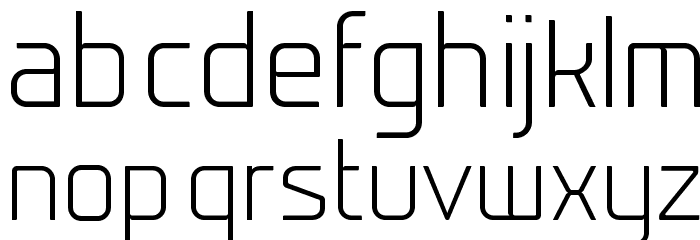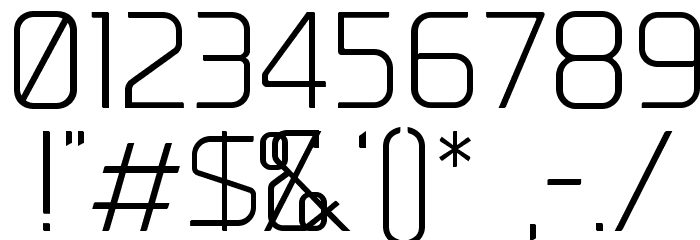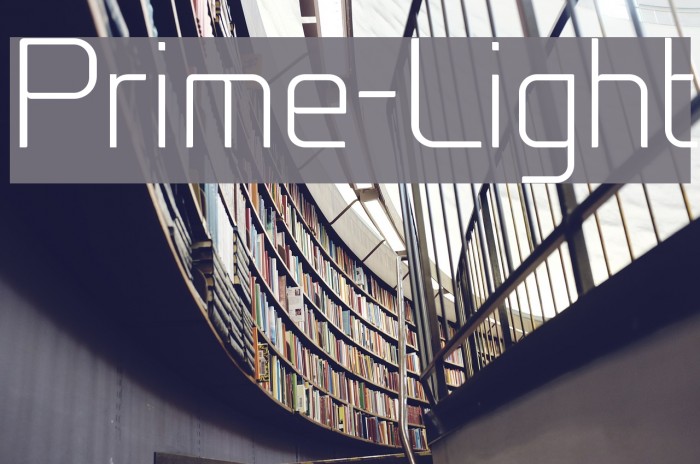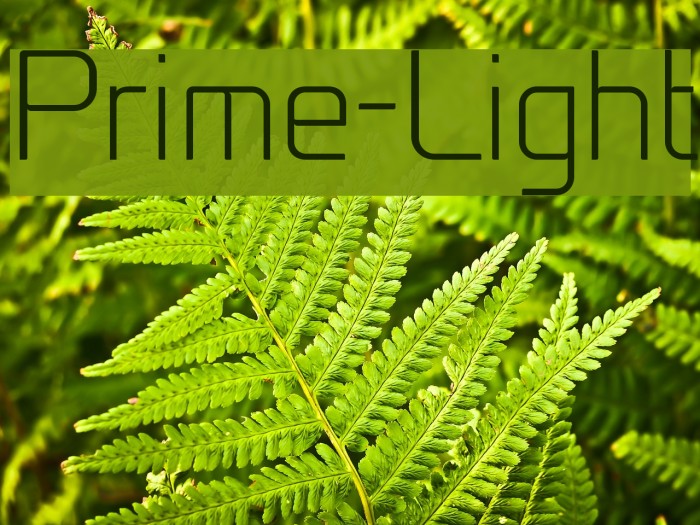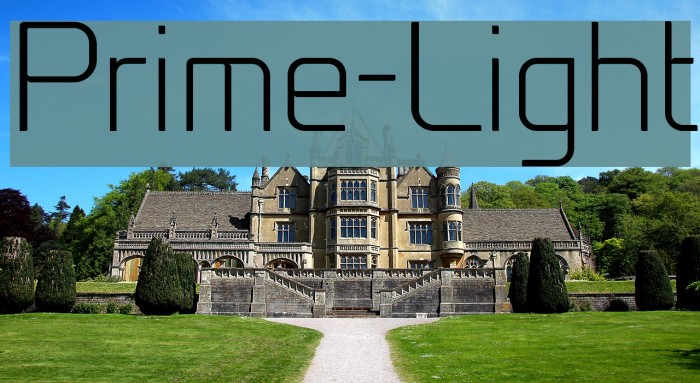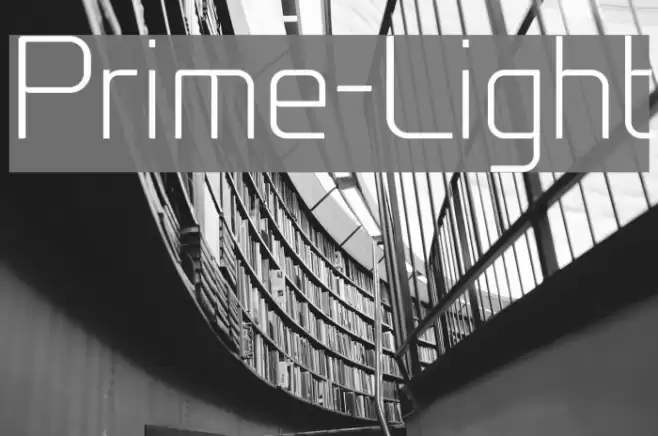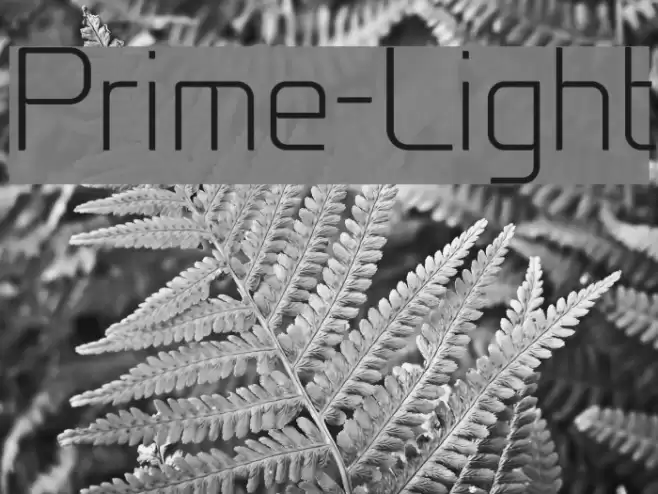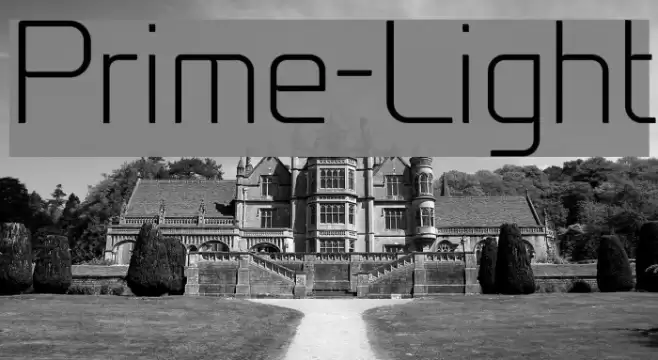
Prime-Light Font
This font features a sleek and modern design with clean, geometric lines. The characters are constructed with a uniform stroke width, giving it a consistent and balanced appearance. The uppercase letters are tall and slightly condensed, while the lowercase letters maintain a similar width, creating a harmonious flow. The numerals are distinct and easy to read, with a contemporary style that complements the overall aesthetic. Special characters are well-integrated, maintaining the font's minimalist and streamlined look. This font is ideal for projects that require a modern and professional touch.
A sleek, modern font with geometric lines and uniform stroke width.
- Proposed Projects: Ideal for branding, web design, corporate materials, and modern advertising.